Pyte Foundry
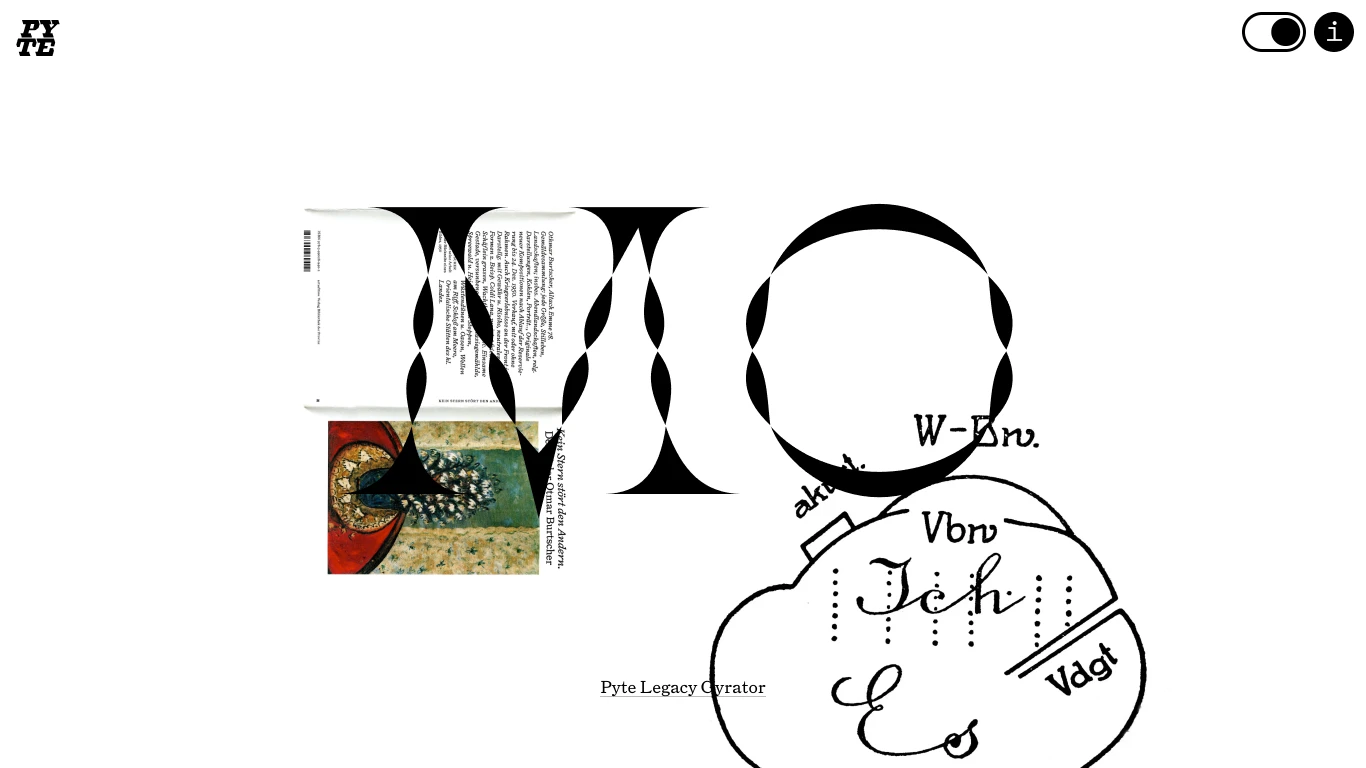
Norway
2015
The Pyte Foundry is an independent type foundry founded in 2015 by Oslo-based designer Ellmer Stefan. Over the course of 2016, the studio released a free display font every week, celebrating the eccentric and imaginative spirit of 19th-century wood type—though not as strict revivals, but as modern reinterpretations. Its retail catalogue features ornate and historical-inspired families such as Compagnie, Kinckq, Pyte Legacy, and Triptych, all blending rough-hewn character with digital craftsmanship. The Pyte Foundry offers bespoke fonts, custom lettering, and typographic consultancy, engaging deeply in historical research and archival exploration to inform its designs—and often works directly with clients on custom commissions. What sets the foundry apart is its “pytographic” ethos: a research-driven, playful, and scholarly process that fuses historical reference, structural oddity, and modern type practices into expressive, idiosyncratic typefaces.